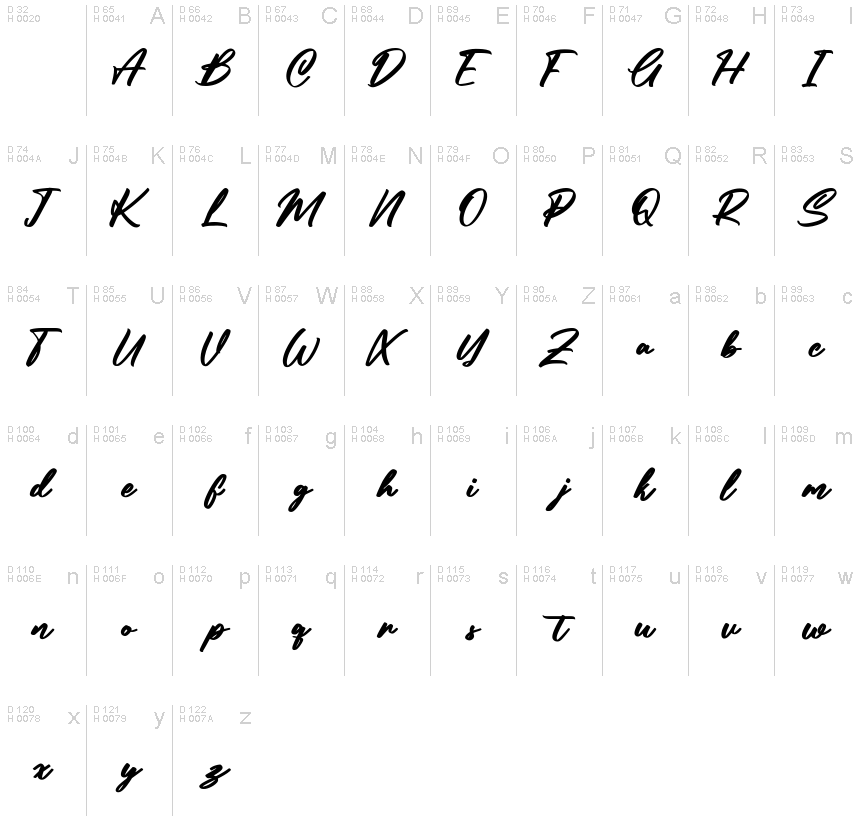
Algrowth Free Font Regular
Algrowth font is a whimsical and dynamic handwritten font designed by Maulana Creative, with a trademark of high contrast bold strokes. This font is cursive and elegant with connected letters that share an immediate flow that's perfect for expressing creative ideas through art or music. It feels smooth when reading something created in Algrowth because of its designers’ flair for creating expressive yet modern designs which can be used across numerous different applications!
The artistic flair makes it versatile, allowing you to create anything from logos and product design to housewares or event stationery-and more: invitations and weddings; album covers; social media posts - endless ideas!